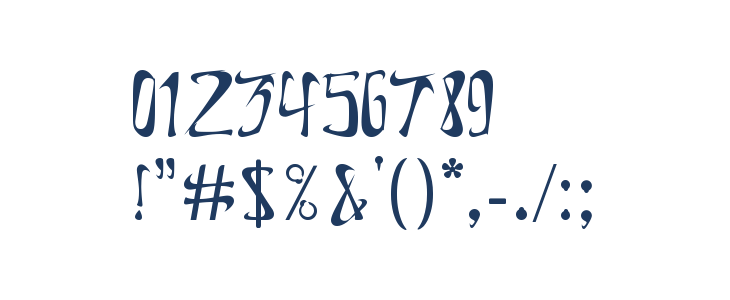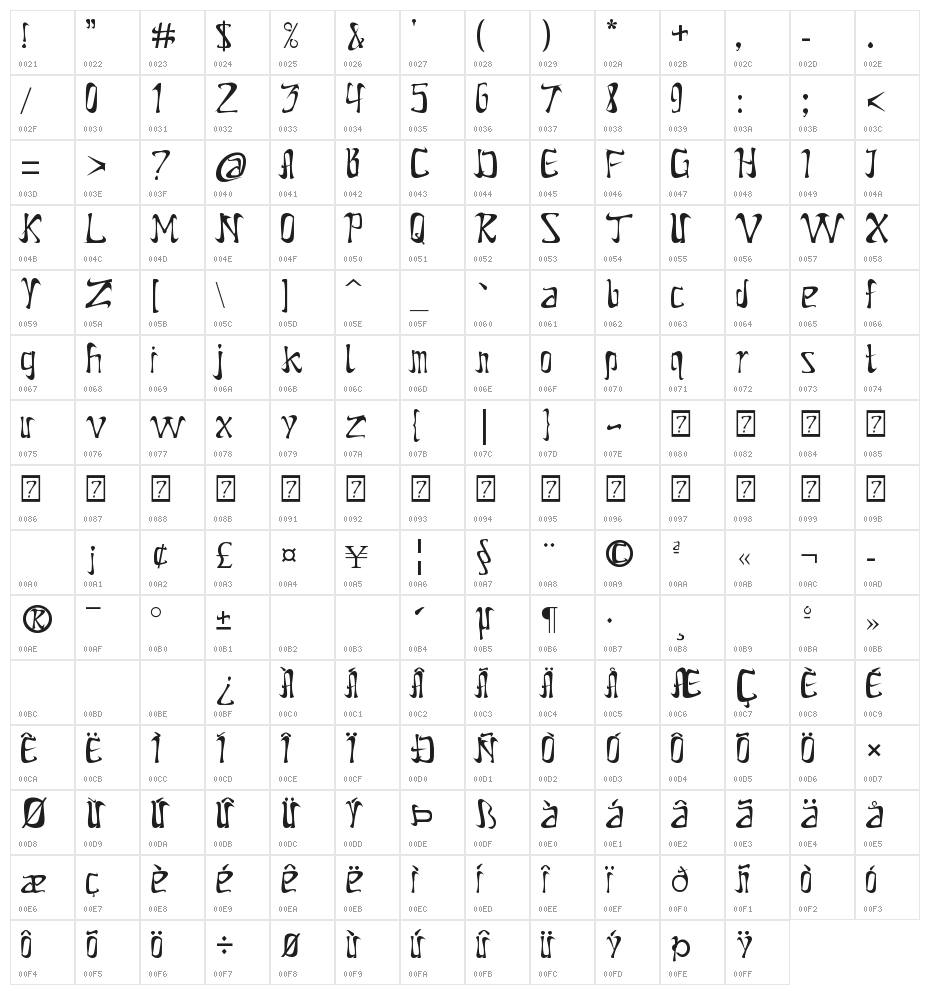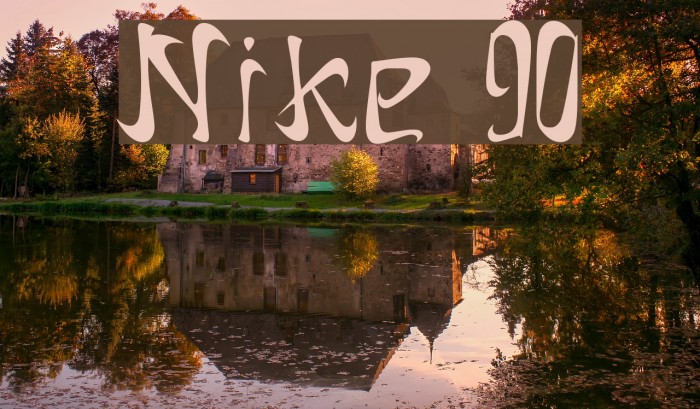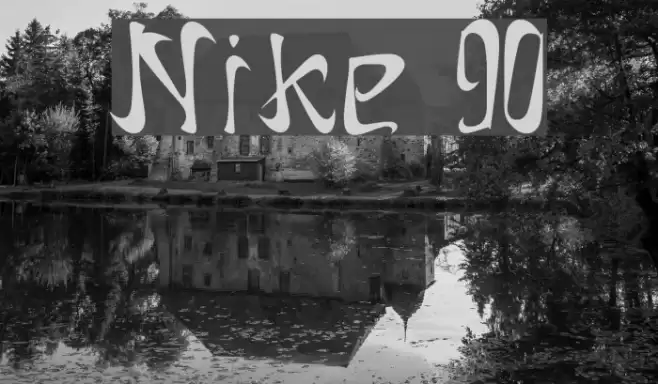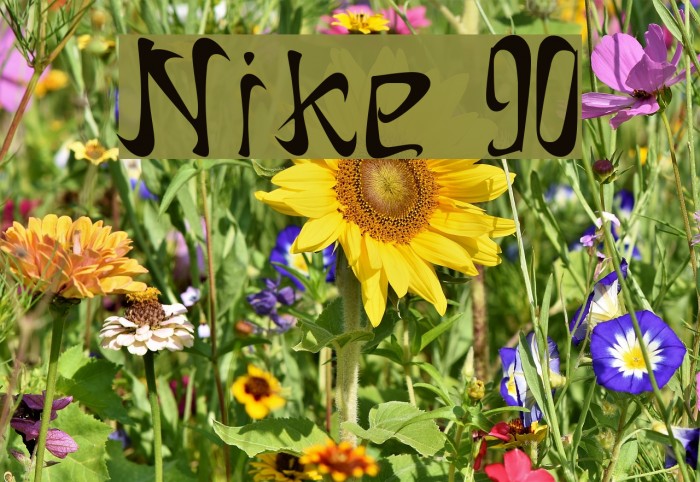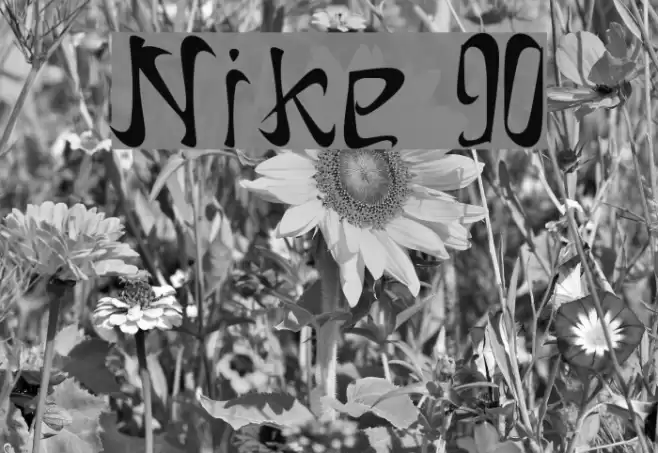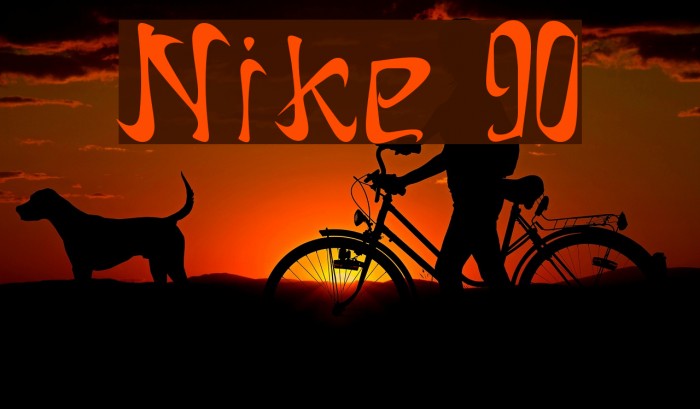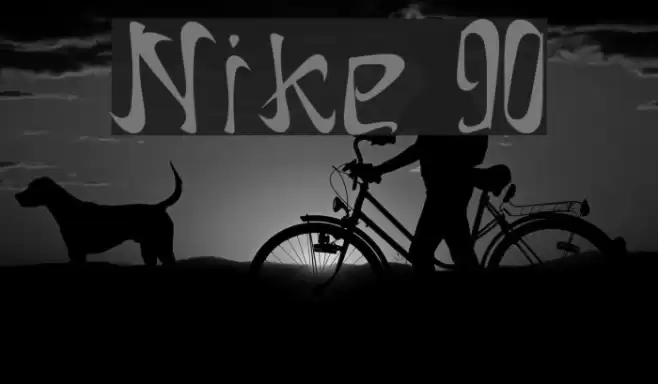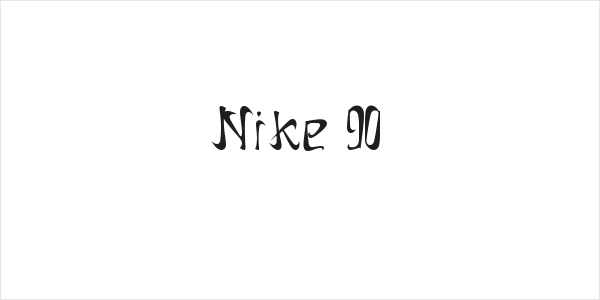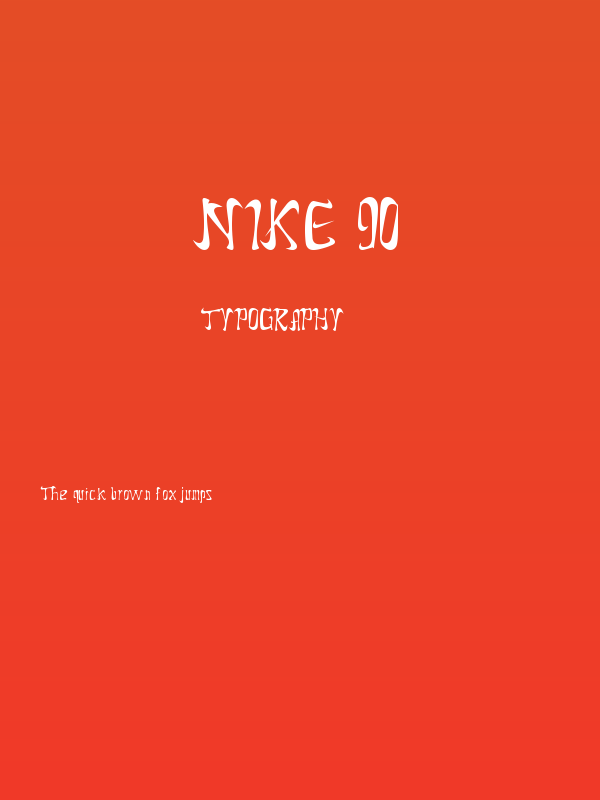
Nike 90 Font
Nike 90 Description
This font features a dynamic and energetic style with a handwritten appearance. The characters exhibit a playful and slightly irregular form, giving them a unique and artistic flair. The uppercase letters are bold and prominent, while the lowercase letters maintain a consistent flow with slightly exaggerated curves and angles. The numbers and special characters follow the same stylistic approach, ensuring a cohesive look across all elements. The font's overall design suggests movement and creativity, making it suitable for projects that require a lively and informal touch.
| Use Case | Logos, Posters, Merchandise |
| Proposed Projects | Ideal for creative projects such as posters, branding, and merchandise that aim to convey energy and individuality. |